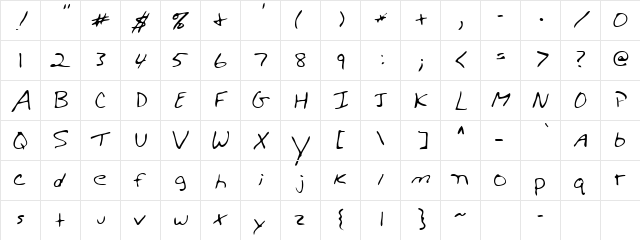
Walter Regular
Design Context for Walter Typeface
Walter is a composed and adaptable typeface that performs quietly and consistently across a wide range of design contexts.